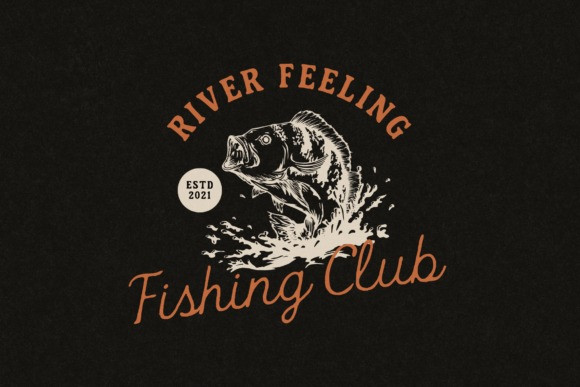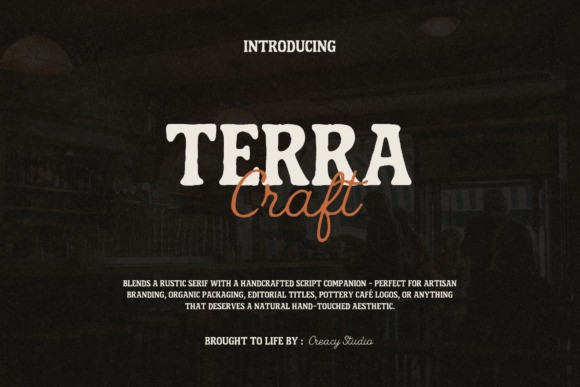
Terra Craft Font Duo
Terra Craft Font Duo is a meticulously hand-designed font duo that masterfully fuses a rugged, bold serif with a naturally flowing script. This beautiful combination has been artistically tailored to exude warmth, authenticity, and bring that coveted handmade touch to the table. Perfectly attuned for artisan branding, logos, organic packaging designs, editorial titles, rustic posters, café and pottery signage, plus apparel, merchandise, and craft designs, Terra Craft is an ode to organic feel and artisanal spirit.
Terra Craft Serif and Script come with a full range of uppercase and lowercase letters, numbers, punctuation, and symbols. Available in diverse file formats, including OTF, TTF, Terra Craft offers comprehensive multilingual support, making it a versatile typeface package.
Terra Craft’s rustic serif, characterized by boldness and slightly imperfect handmade details, is certainly the show stealer. On the other hand, its complementary smooth flowing script harmonizes wonderfully, generating a perfect balance.
The two fonts can be artistically paired for headlines and taglines, seamlessly bringing out a distinctly timeless, vintage, and handcrafted aesthetic. Discover the fascinating charm of Terra Craft, where the magic of artisan craft meets typography.